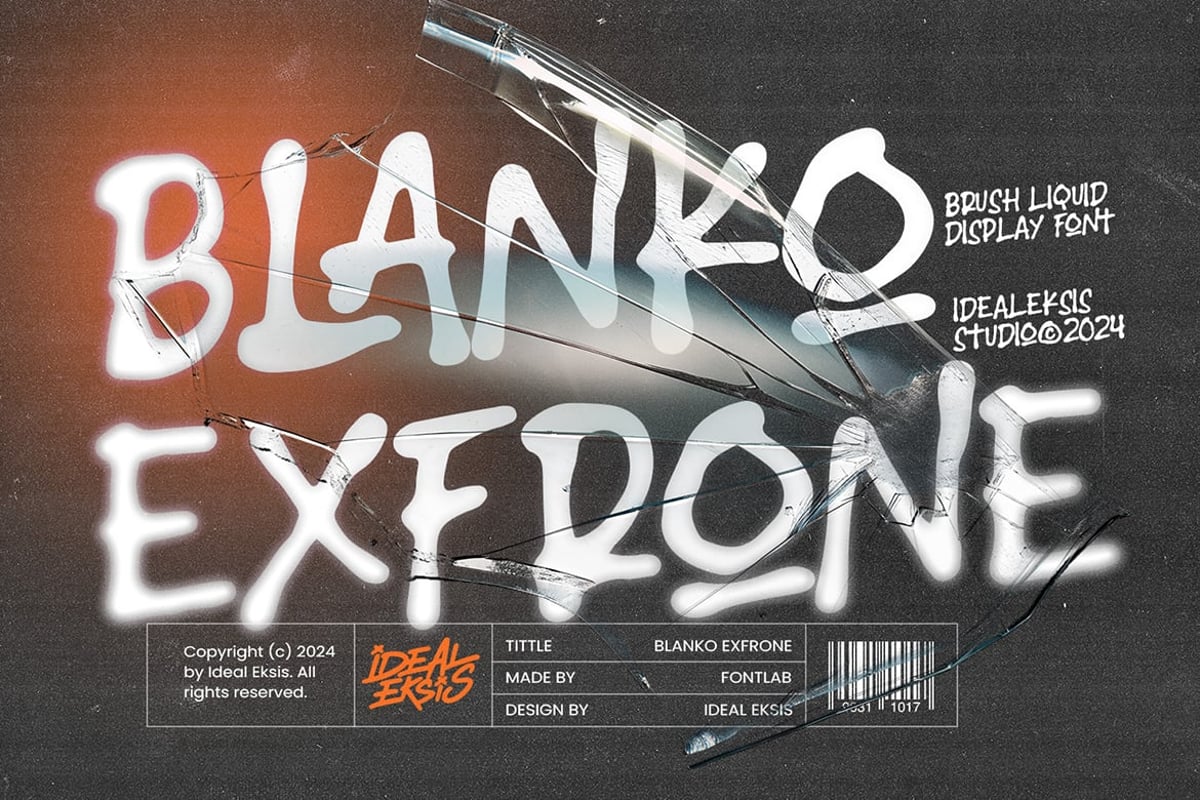
BlankoExfrone - Street Marker Font
Unleash raw street energy with BlankoExfrone - a rebellious brush liquid display font that makes every design scream attitude.
This bold typeface features fluid strokes and broken shapes that create an authentic street-style aesthetic. Its edgy, artistic appearance brings a raw, energetic vibe that instantly makes any project stand out from the crowd.
Perfect for posters, album covers, urban branding, graffiti-inspired designs, and bold creative projects that demand attention.
- Uppercase and lowercase characters
- Ligatures and alternates
- Standard glyphs
- Multilingual accent support